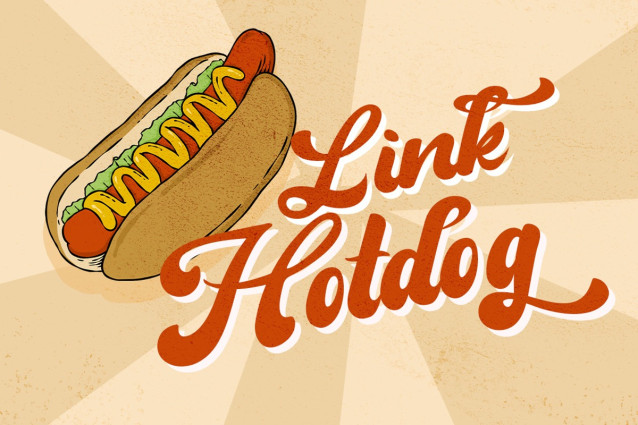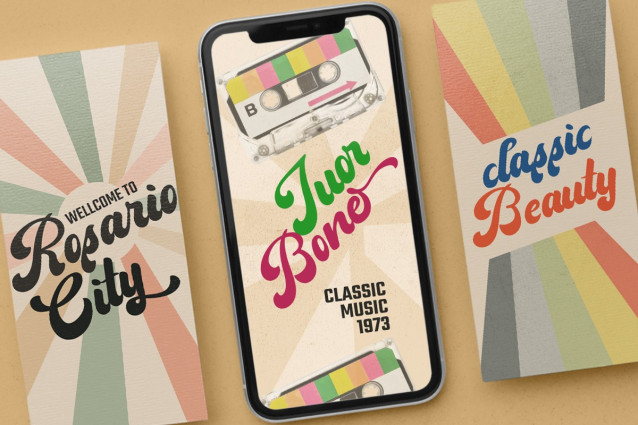
Clasifa Script Font
Clasifa Script Font a retro bold script style typeface. Inspired by retro typography and lettering in the ’70s and ’80s combined with bold typography style. This Font is perfect for vintage and retro design, badges, logos, posters, branding, packaging, signage, book cover and so much more!